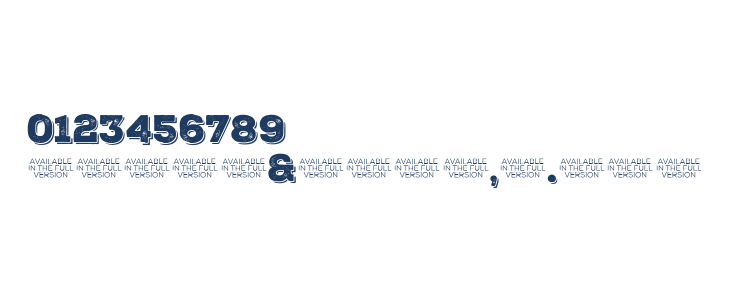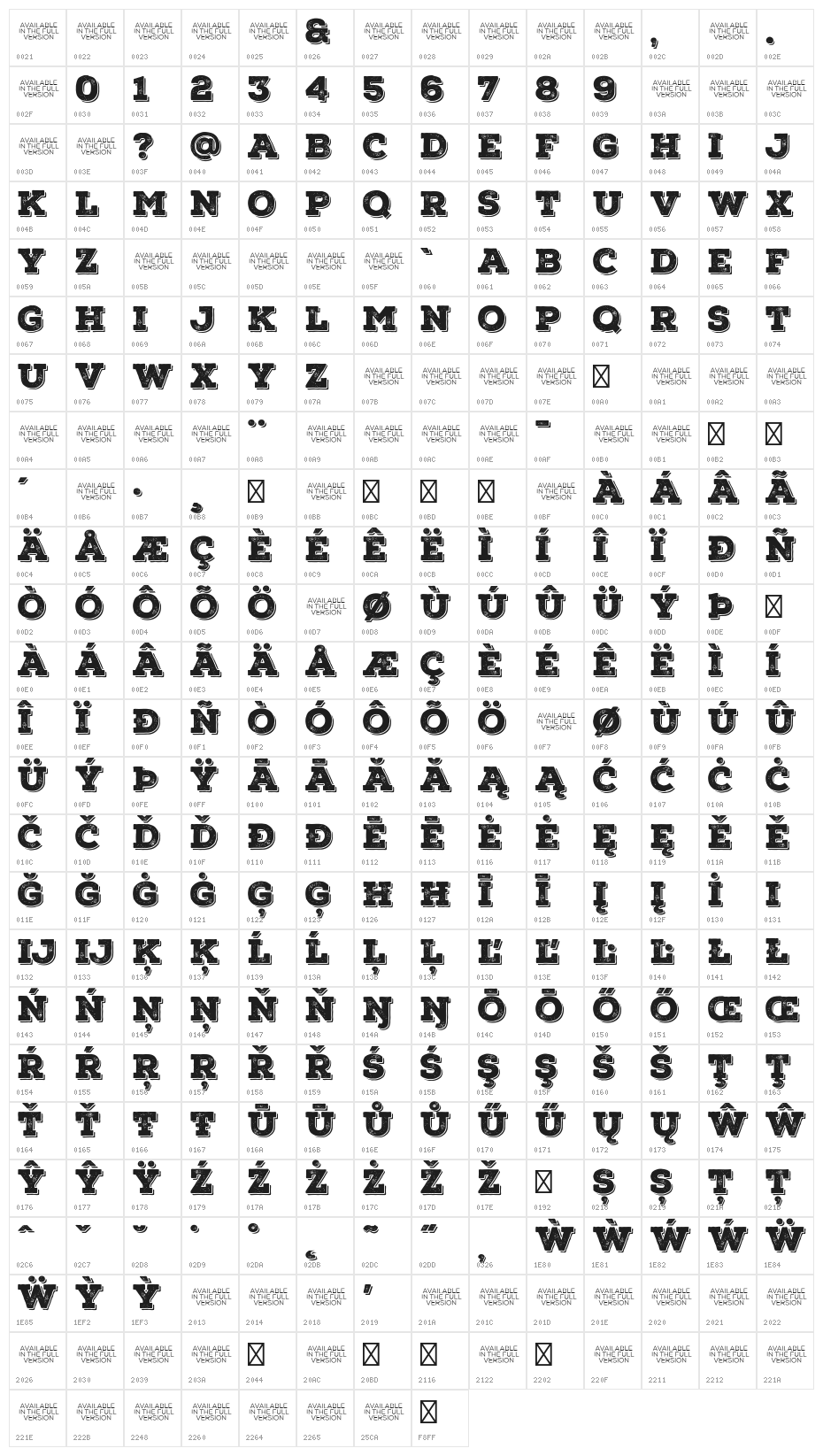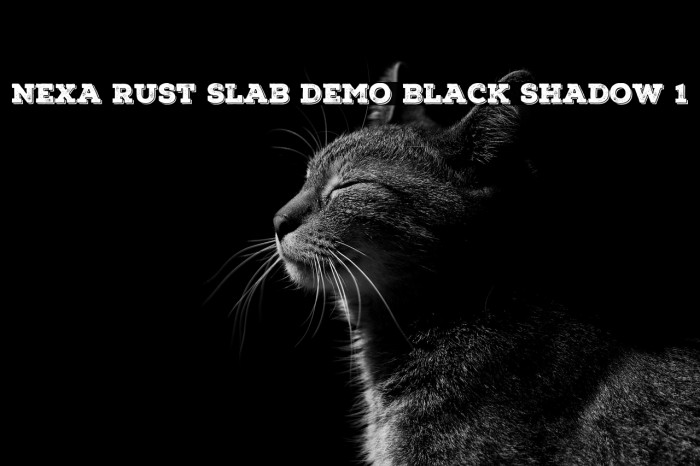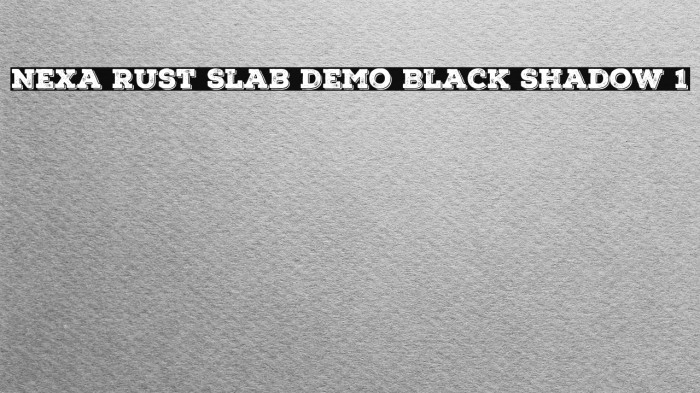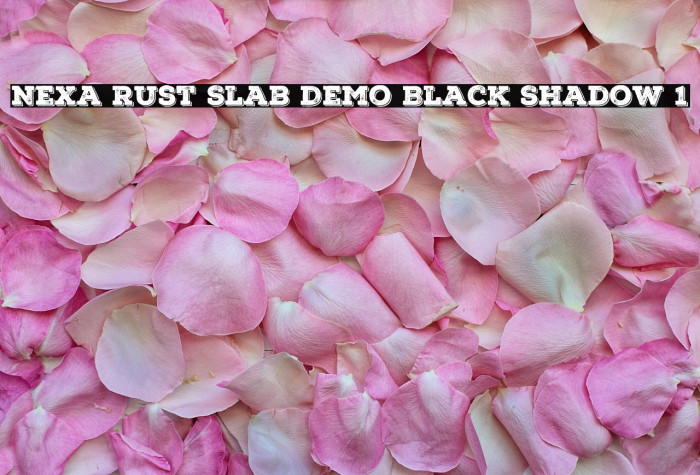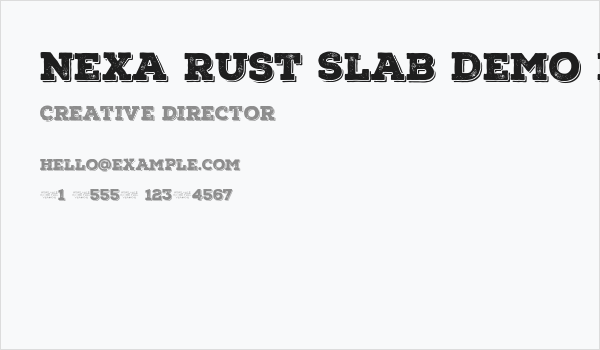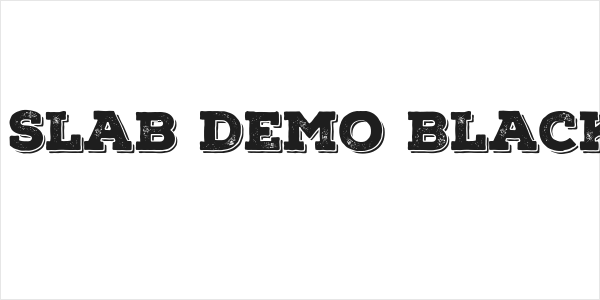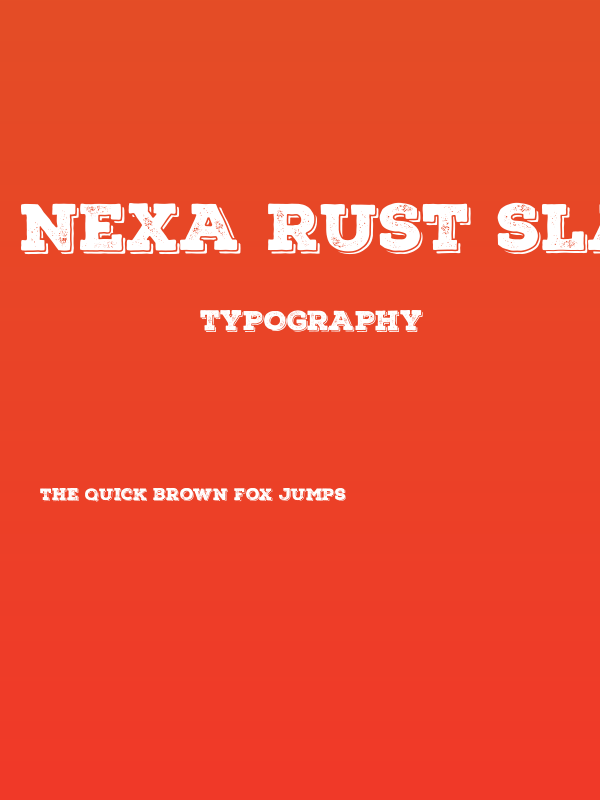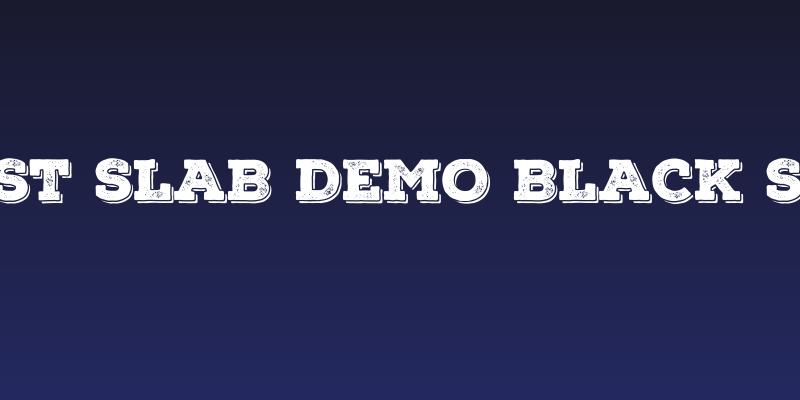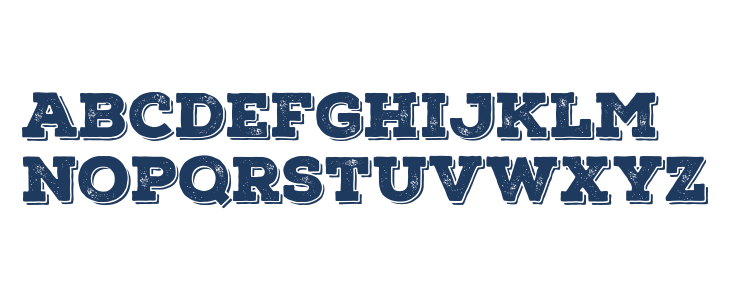
Nexa Rust Slab Demo Black Shadow 1 Font
Nexa Rust Slab Demo Black Shadow 1 Description
This font features a bold, slab serif style with a distinct shadow effect that gives it a rugged, vintage appearance. The characters are heavily weighted, with thick strokes and a distressed texture that adds a rustic charm. The uppercase letters are prominent and commanding, making them ideal for impactful headlines. The numbers and special characters maintain the same bold and textured style, ensuring consistency throughout. This font's unique shadowing and texture make it stand out, providing a sense of depth and dimension.
| Proposed Projects | Ideal for vintage-themed posters, logos, branding projects, and packaging designs that require a bold and rustic aesthetic. |